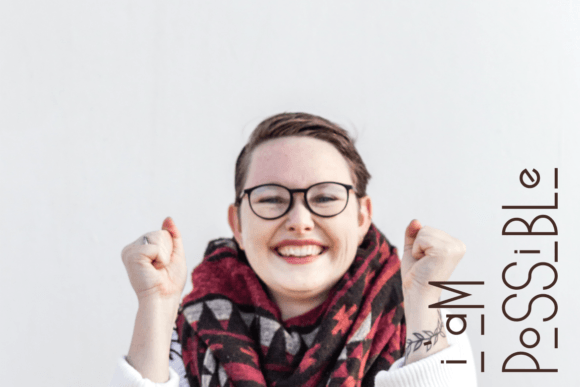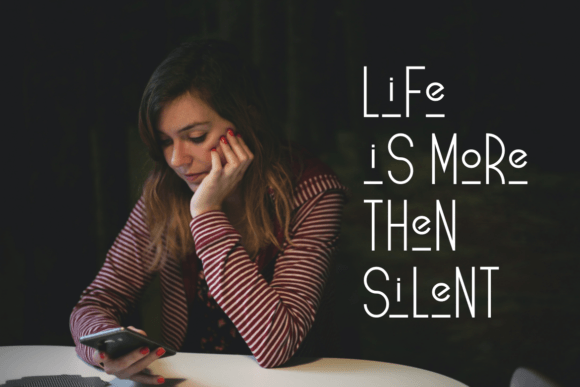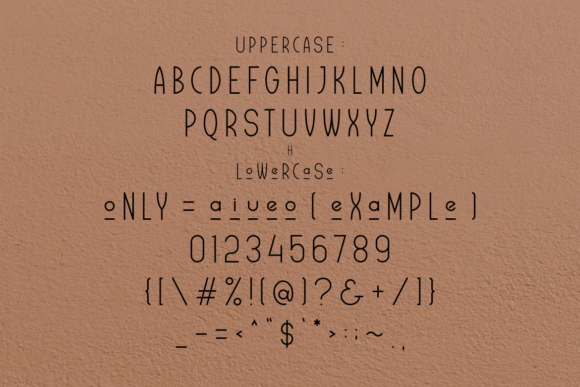
Introduction to Nodhe Font
Have you ever stared at a blank canvas, eager to bring your creative vision to life, only to struggle finding the perfect font to set the tone? That’s where the Nodhe Font comes in – a stylish and cool sans-serif font that’s about to become your new go-to design resource.
Imagine having the power to elevate any creative project with a single font. With its high quality and sleek design, the Nodhe Font is the perfect addition to your library, guaranteed to make your designs stand out. Whether you’re working on a free download or a high-end commercial project, this font has the potential to take your work to the next level.
As a valuable asset for designers, the Nodhe Font offers a transparent background that allows your message to shine through. Its versatility and modern aesthetic make it an ideal choice for a wide range of creative projects, from digital to print. Get ready to experience the transformative power of the Nodhe Font and take your design skills to new heights.
Key Features of Nodhe Font
- High-quality design: Nodhe Font offers a unique and stylish design perfect for creative projects.
- Transparent background: This font features a transparent background, making it ideal for use on various backgrounds.
- Large character set: Nodhe Font includes a large character set, including uppercase and lowercase letters, numbers, and special characters.
- High-resolution design: The font is designed at 300 DPI, ensuring crisp and clear text even at larger sizes.
- Perfect for design resources: Nodhe Font is a versatile design resource suitable for a wide range of creative projects, from logos to typography.
Honest Review: Nodhe Font
I recently came across the Nodhe Font, a free download that caught my eye for its unique design and versatility. As a designer, I’m always on the lookout for high-quality design resources to enhance my creative projects.
The Nodhe Font boasts a transparent background, which makes it perfect for layering and blending with other design elements. The font’s clean lines and minimalist aesthetic make it a great choice for modern designs.
- Unique and modern design
- Transparent background for easy layering
- Perfect for creative projects and design resources
- May not be suitable for traditional or formal designs
- Limited character set, may require additional fonts for full functionality
Overall, I’m impressed with the Nodhe Font’s design and versatility. While it may have some limitations, it’s a great addition to any designer’s toolkit, especially for creative projects that require a modern and unique touch.
Nodhe Font
Nodhe Font is a high-quality design resource ideal for creative projects. Its unique style and transparent background make it perfect for various applications.
Tips for Getting the Most Out of Nodhe Font
For optimal results, use Nodhe Font on a high-quality background and experiment with different font sizes and colors.
Nodhe Font is suitable for various creative projects, including:
Graphic design, logo creation, and branding materials.
Print materials, such as business cards and brochures.
Web design, including websites and social media graphics.
Alternatives to Nodhe Font
Open Sans is a high-quality, modern sans-serif font that is highly legible and versatile. It is available for free download and is a great design resource for digital projects. When to use: Use Open Sans for digital projects, such as websites, mobile apps, and social media platforms. It is a great alternative to Nodhe Font for its clean and minimalist design.
Comparison: While Nodhe Font has a more unique and creative feel, Open Sans is more straightforward and easy to read. Open Sans is a better choice for projects where readability is crucial.
Does the Nodhe Font have a transparent background?
Yes, the Nodhe Font has a transparent background, making it ideal for use on a variety of design backgrounds, including images and videos. This feature allows you to easily overlay the font on top of other design elements, creating a seamless and visually appealing design.